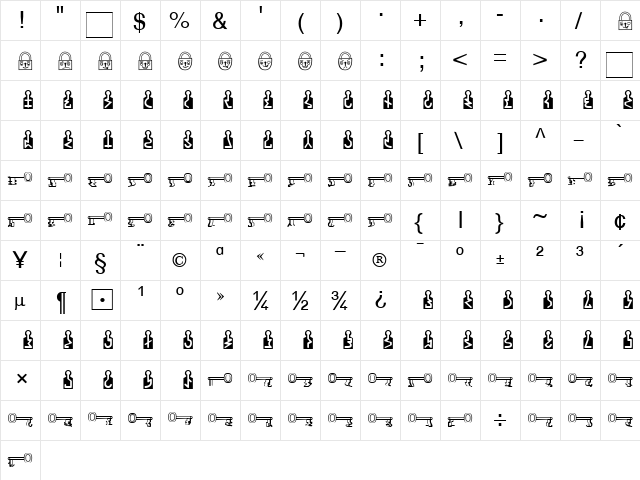
SR Schloss Normal
Design Context for SR Schloss Typeface
SR Schloss is a composed and adaptable typeface that performs quietly and consistently across a wide range of design contexts.
Pro Tip: Use SR Schloss in both headline and body roles to test its range before committing to a single application.